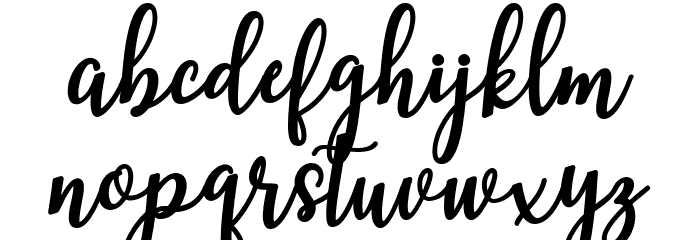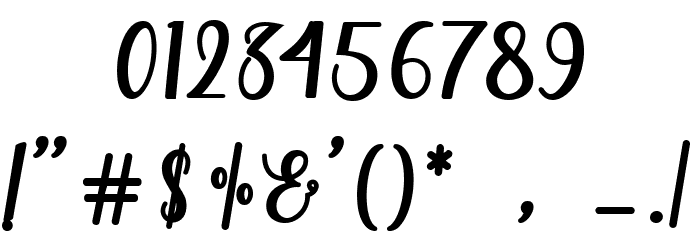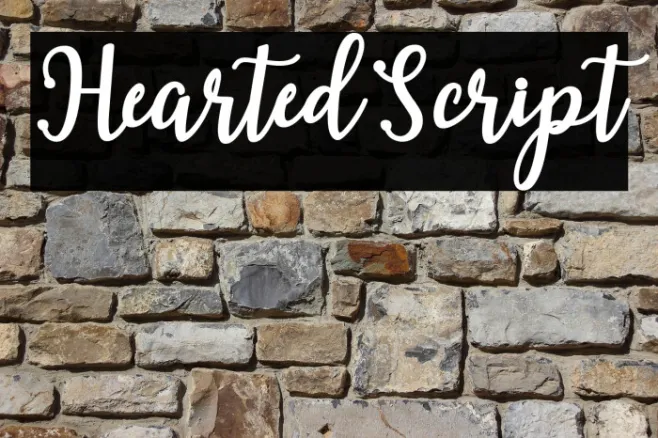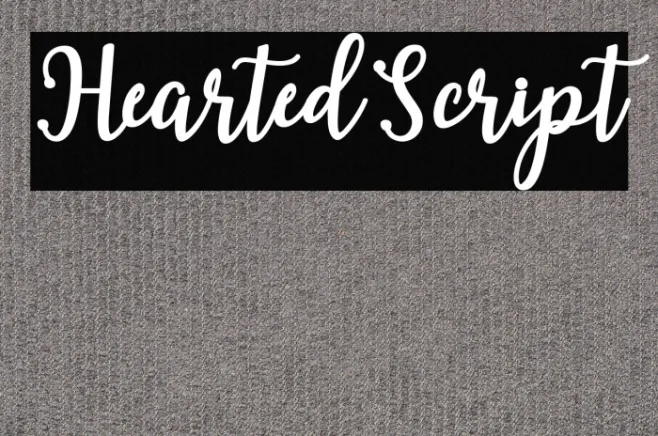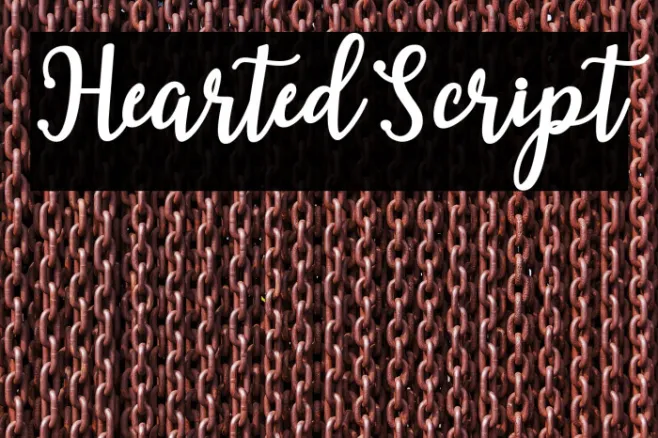
HeartedScript Font
This font features a charming and elegant script style with a handwritten feel. The letters are connected in a fluid manner, creating a sense of continuity and grace. The uppercase letters are slightly more ornate, with subtle flourishes that add a touch of sophistication. The lowercase letters maintain a consistent flow, enhancing readability while retaining the decorative appeal. The numerals and special characters are crafted to match the overall aesthetic, ensuring a cohesive look across all text elements. This font is perfect for projects that require a personal and artistic touch, such as invitations, greeting cards, and branding materials.
A charming and elegant script font with a handwritten feel.
- Font: HeartedScript
- Proposed Projects: Ideal for invitations, greeting cards, branding, and artistic projects.
- Use Case: Logos, Headlines, Artistic projects